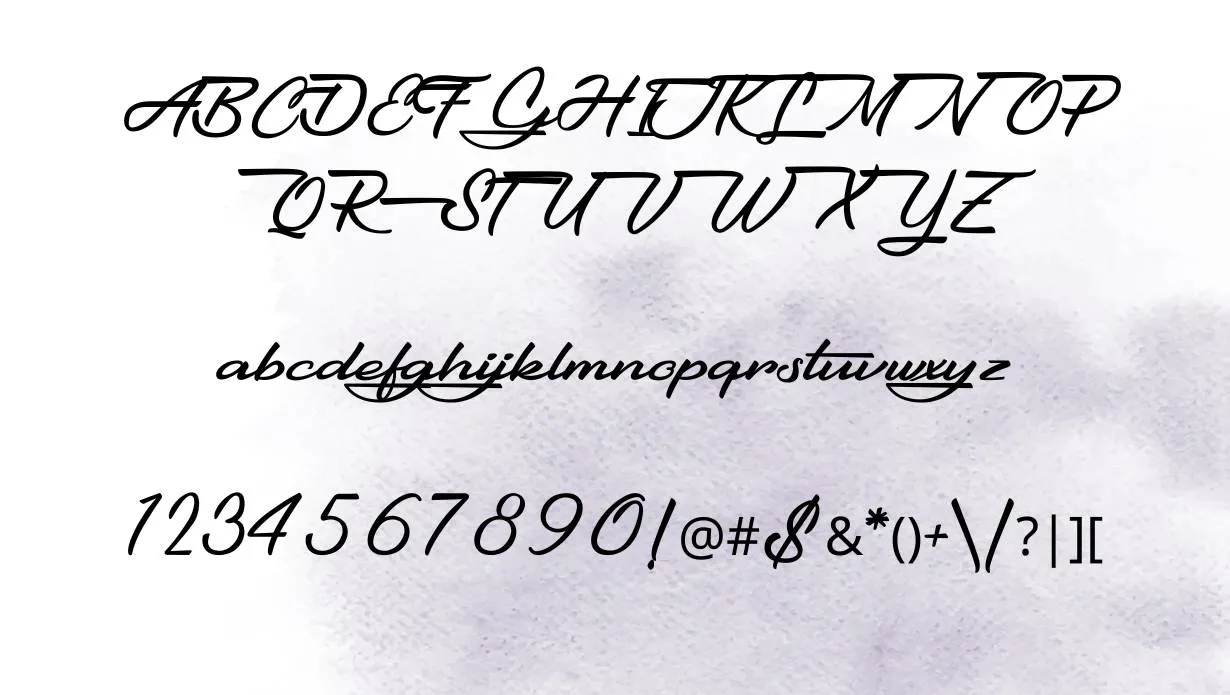
Gentlemanly Font is a classic and refined typeface known for its elegant and sophisticated appearance. Its timeless design and sleek style make it perfect for luxury branding, formal invitations, and distinguished editorials.